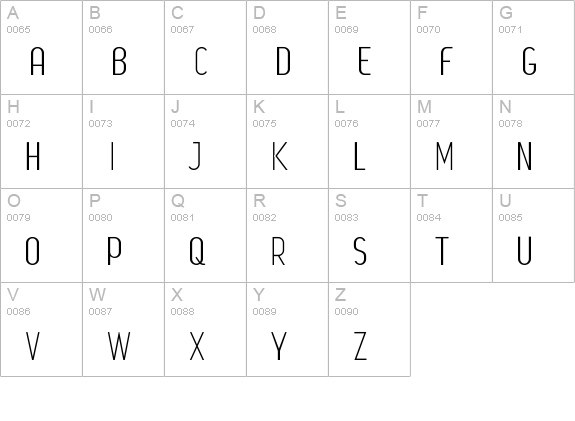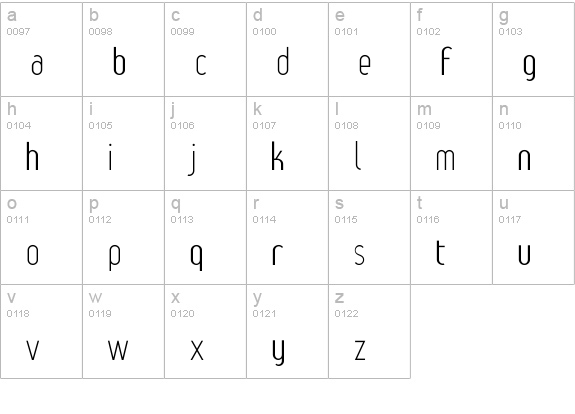
Leger-Light is a refined, elegant variant in the Leger typeface family \xE2\x80\x94 well suited to elegant body text, refined sub-headings, and luxury branding.
Introducing Leger-Light font, a captivating and versatile typeface that effortlessly combines elegance with modern simplicity. Its clean lines and graceful curves create an exquisite balance, making Leger-Light an ideal choice for a wide range of creative projects. This delightful font exudes a sense of sophistication and refinement, while maintaining a welcoming and approachable aura. Its slender and delicate strokes give Leger-Light a distinctive charm, ensuring that it stands out from the crowd without overpowering the overall design. Designed with meticulous attention to detail, Leger-Light is perfect for conveying a sense of elegance in branding, editorial design, invitations, packaging, and much more. Its versatility allows it to adapt seamlessly to various applications, from delicate and feminine designs to minimalist and contemporary compositions. But what makes Leger-Light font even more enticing is that it is freely available to download at FontsMarket.com. Yes, you read that right – this exceptional font can be yours without any cost. Now, you can elevate your creative projects without breaking the bank. Don't miss the opportunity to add Leger-Light font to your typographic arsenal. Its timeless appeal and versatility will undoubtedly enhance the visual impact of your designs, leaving a lasting impression on your audience. Download Leger-Light font from FontsMarket.com today and unlock a world of possibilities.